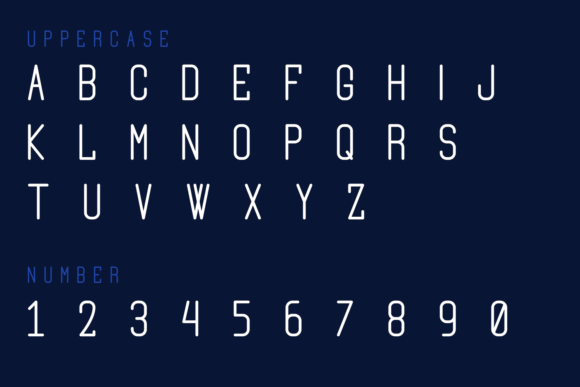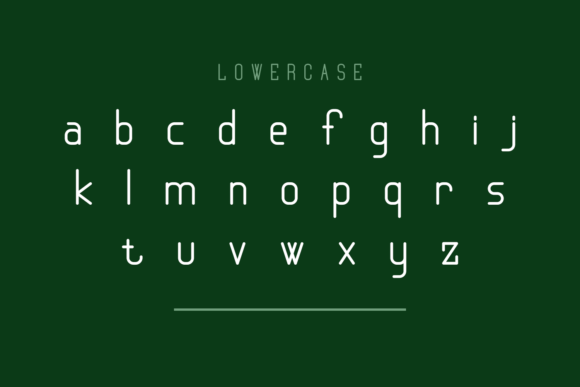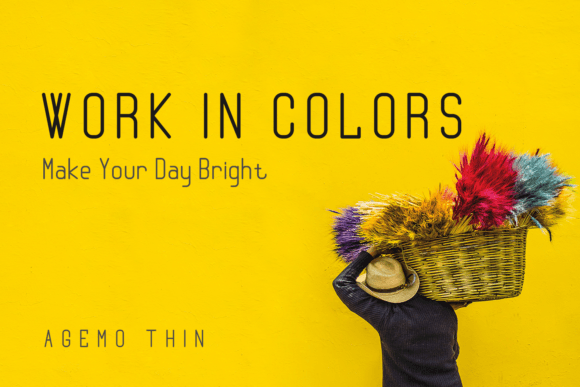
Unlock the Secret to Stunning Designs with Agemo Thin Font
Have you ever stared at a blank canvas, waiting for the perfect font to bring your design to life? That’s exactly where I was a few months ago, struggling to find the right font for my new project. But then, I stumbled upon Agemo Thin Font – a stylish and cool sans serif font that changed everything.
As a designer, you understand the importance of choosing the right font to make your designs stand out. That’s where Agemo Thin Font comes in – a versatile font that’s perfect for creating eye-catching logos, branding, and quotes. Its unique and beautiful touch will make your design come alive, giving you the edge you need to impress your clients.
With Agemo Thin Font, you’ll have the freedom to unleash your creativity and bring your designs to life. Whether you’re a seasoned designer or just starting out, this font is a valuable addition to your toolkit.
- Unique Characteristics: Agemo Thin is a modern sans-serif font designed for digital use, with a focus on legibility and readability at small font sizes
Review: Agemo Thin Font
As a designer, I was excited to dive into the Agemo Thin Font. Here’s my honest take on this font.
- Unique aesthetic: Agemo Thin Font has a distinct, modern look that’s sure to grab attention. Its minimalist design makes it perfect for digital applications.
- Legibility: Despite its thin appearance, the font is surprisingly legible, especially in smaller text sizes.
- Font pairing versatility: Agemo Thin Font pairs well with a variety of font styles, from bold and playful to elegant and sophisticated.
- Readability at very small sizes: While Agemo Thin Font is legible in smaller text sizes, it can become difficult to read when the text is reduced to extremely small sizes.
- Lack of bold weight: The font is only available in a single weight, which can limit its versatility in certain design applications.
- Not ideal for print: Due to its thin design, Agemo Thin Font may not be the best choice for print materials where a more robust font is required.
Overall, Agemo Thin Font is a solid addition to any digital design toolkit. While it has some limitations, its unique aesthetic and versatility make it a great choice for designers looking to add some modern flair to their work.
Tips for Getting the Most Out of Agemo Thin Font
1. Use Agemo Thin font for titles and headings to create a clean and modern look.
2. Pair Agemo Thin font with other sans-serif fonts for a balanced design.
1. Branding and logo design.
2. Digital marketing materials (e.g. social media graphics, email newsletters).
3. Editorial design (e.g. magazines, newspapers).